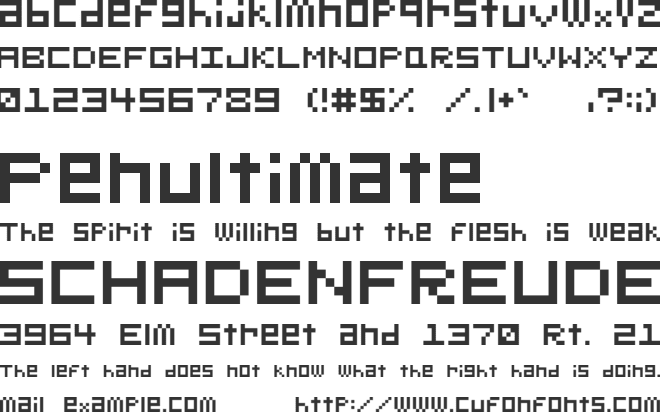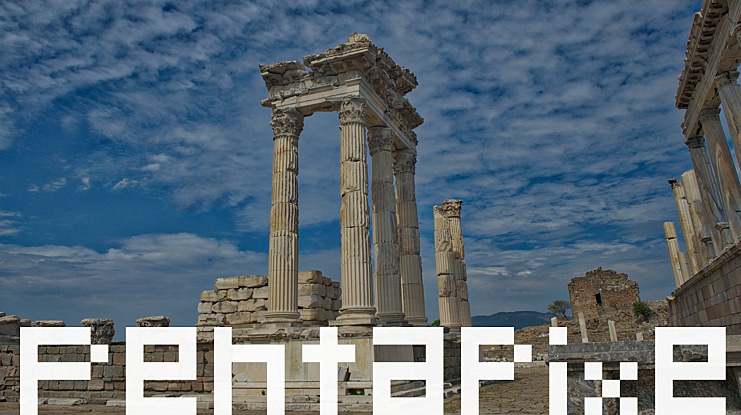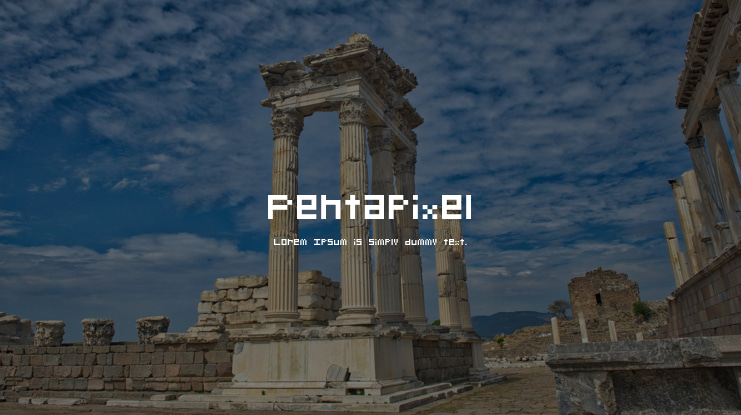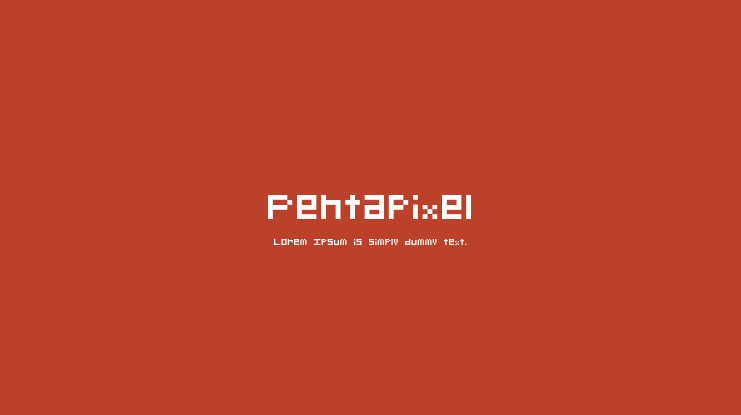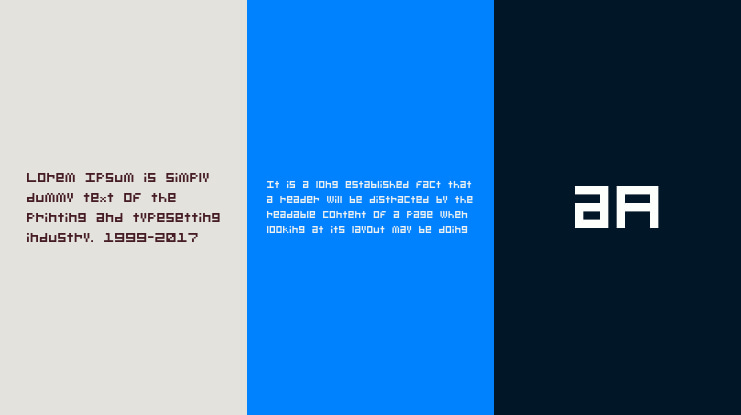
Pentapixel Font
I am making a pixel-style game and I wanted to create a font that would fit in 5x5 pixel grid. There were some other options available but I didn't even look at them since I wanted something I made myself. There are some similarities with the other ones (obviously, since 5x5 is quite limiting) but I think it still has a bit different feel. The smaller letters didn't turn out well, but then again I only wanted capital letters anyway.